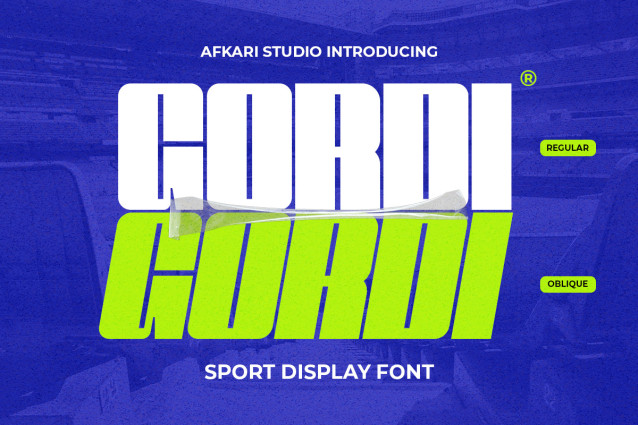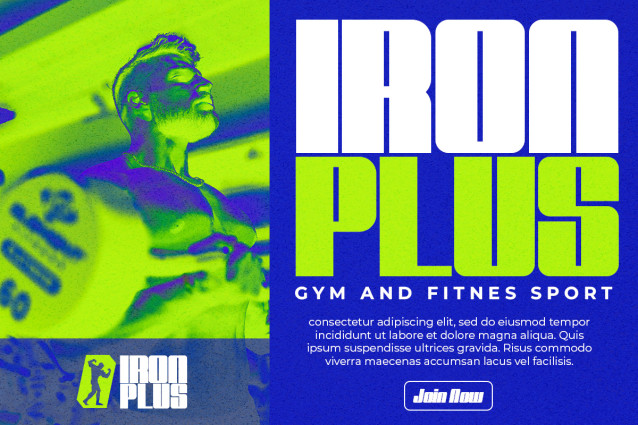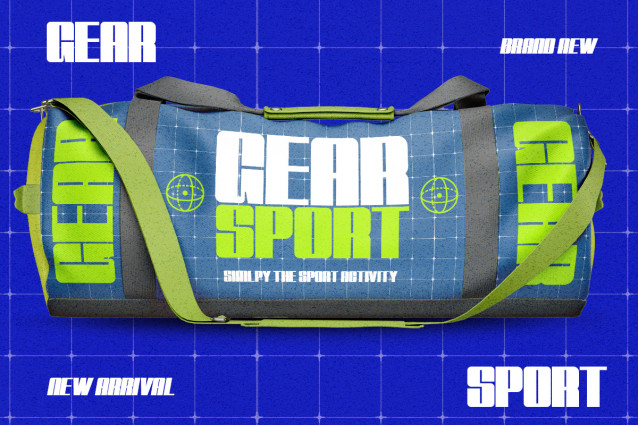
Gordi – Sport Display Font
Gordi is a bold and energetic sport display font designed to bring power, motion, and modern athletic style into your typography projects. Built with strong geometric shapes, sharp angles, and confident letterforms, Gordi delivers a dynamic visual impact that instantly captures attention. This font is perfect for designers who want to create sporty, competitive, and high-energy design compositions.